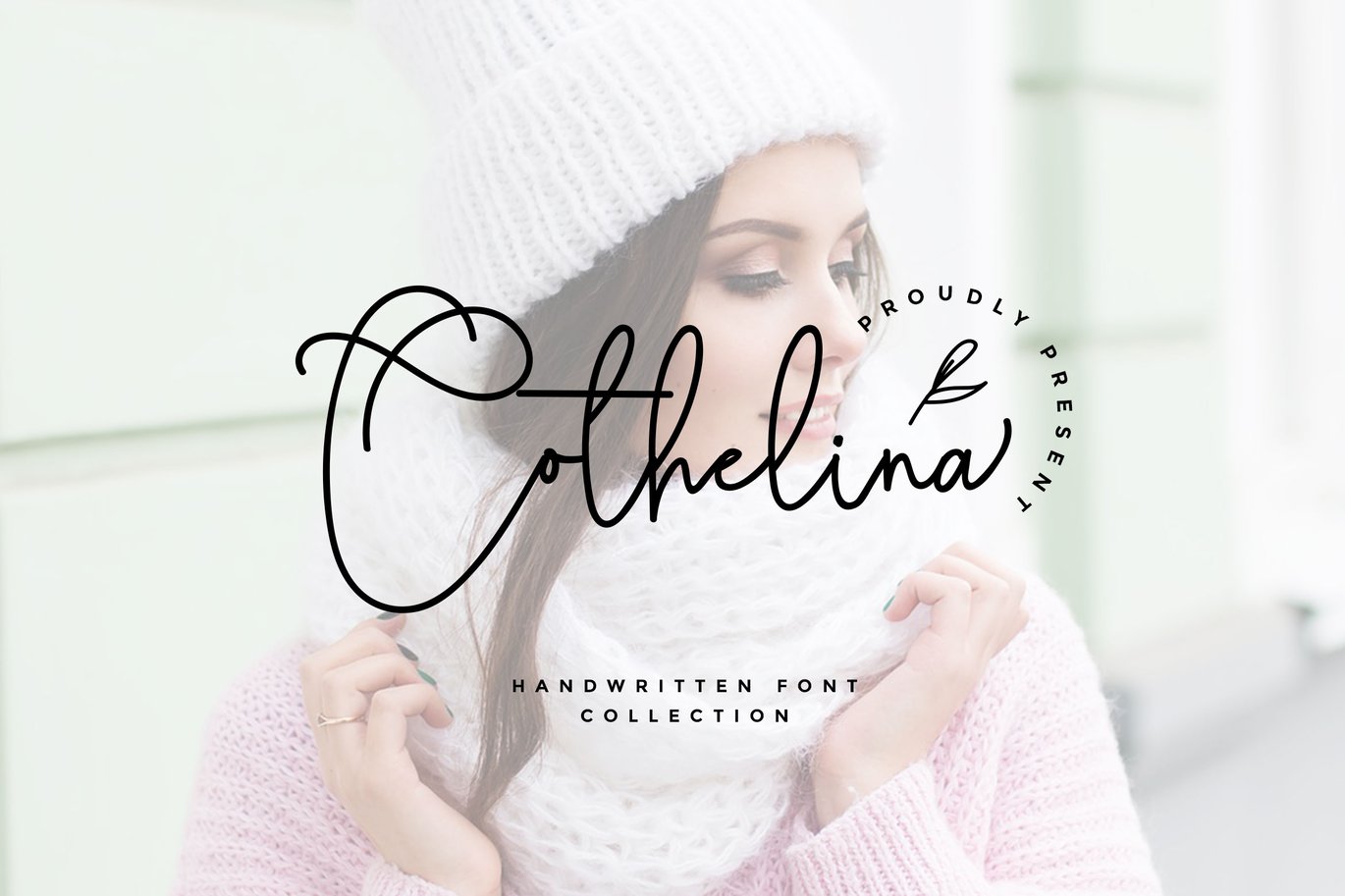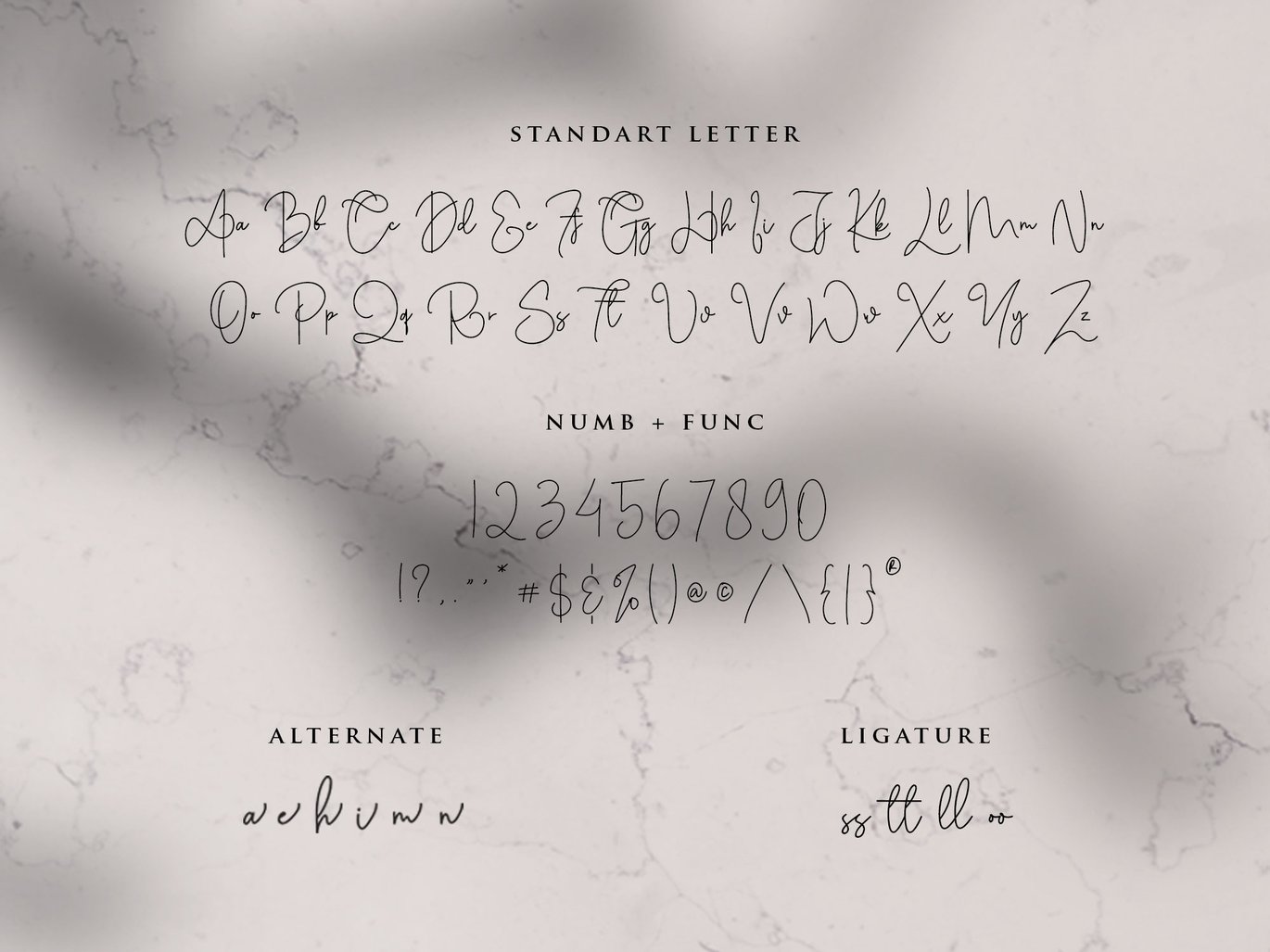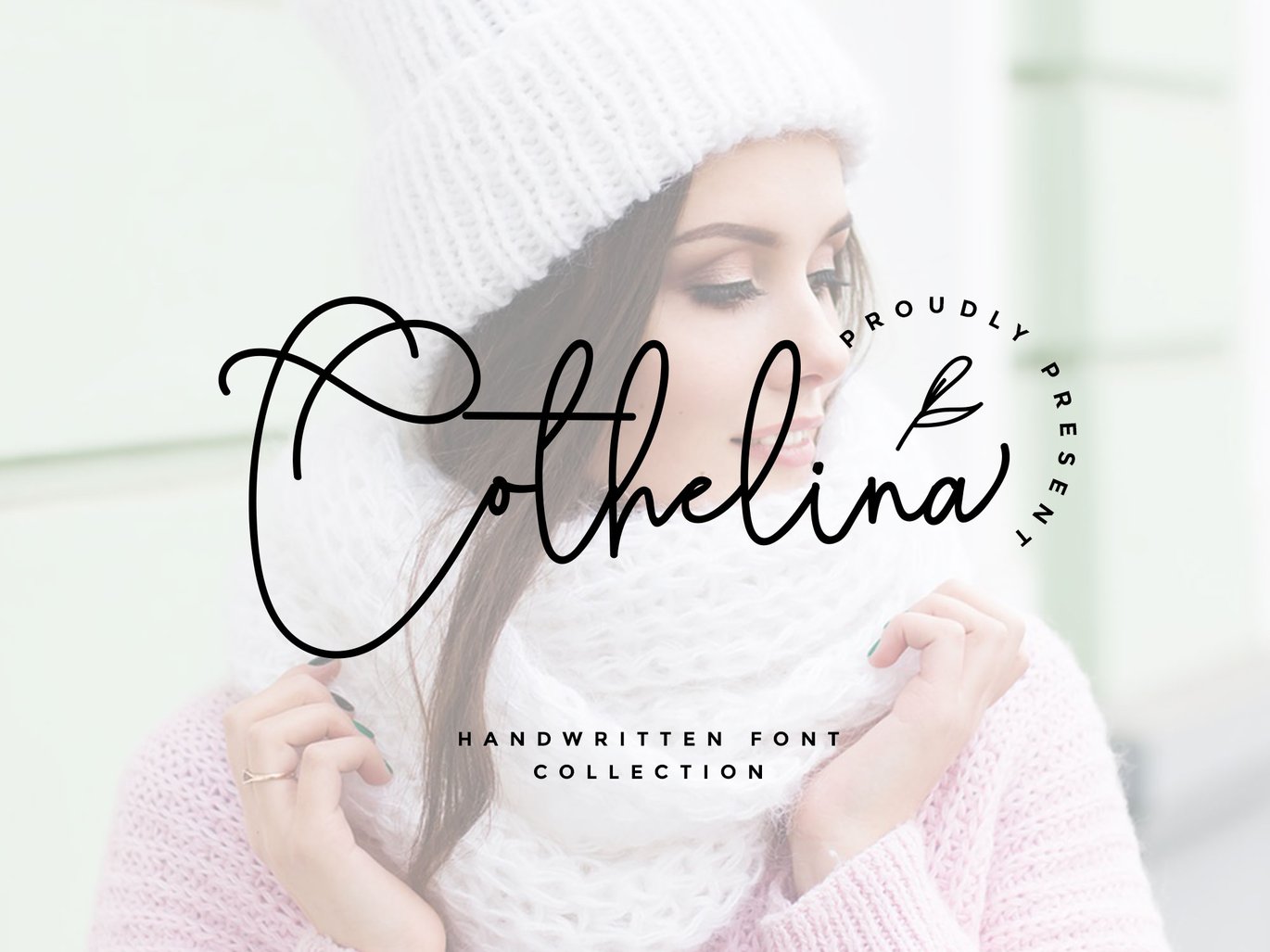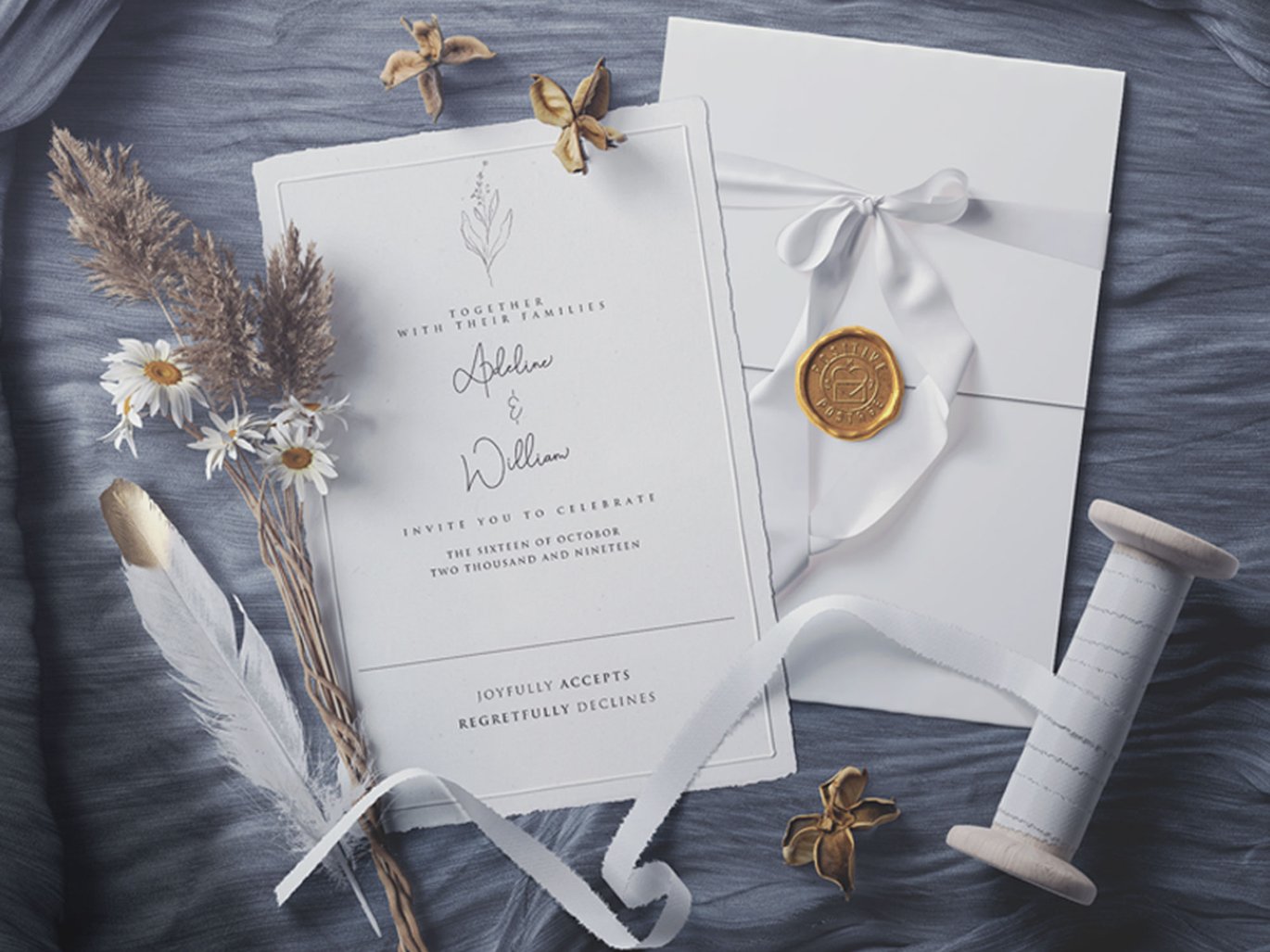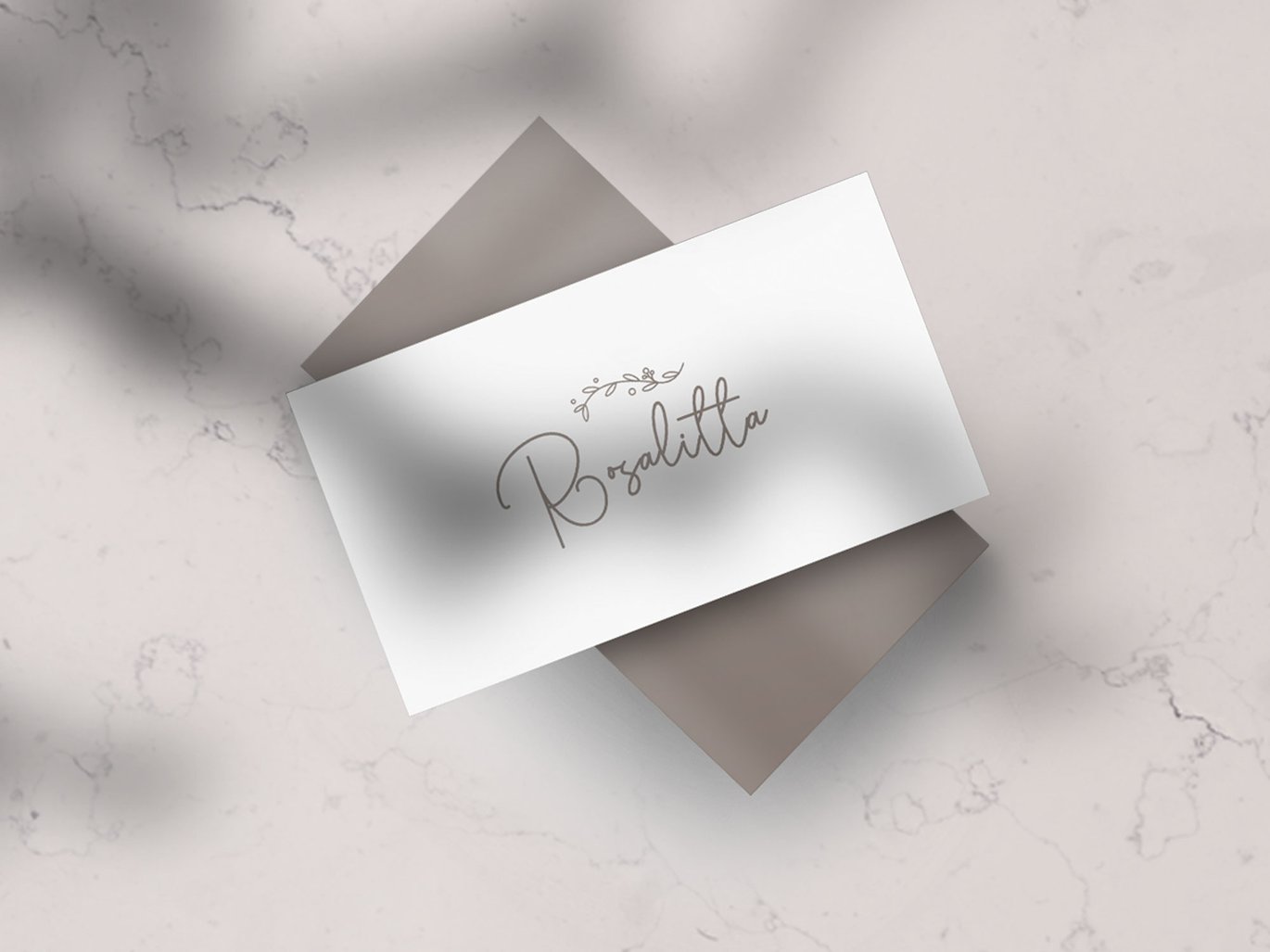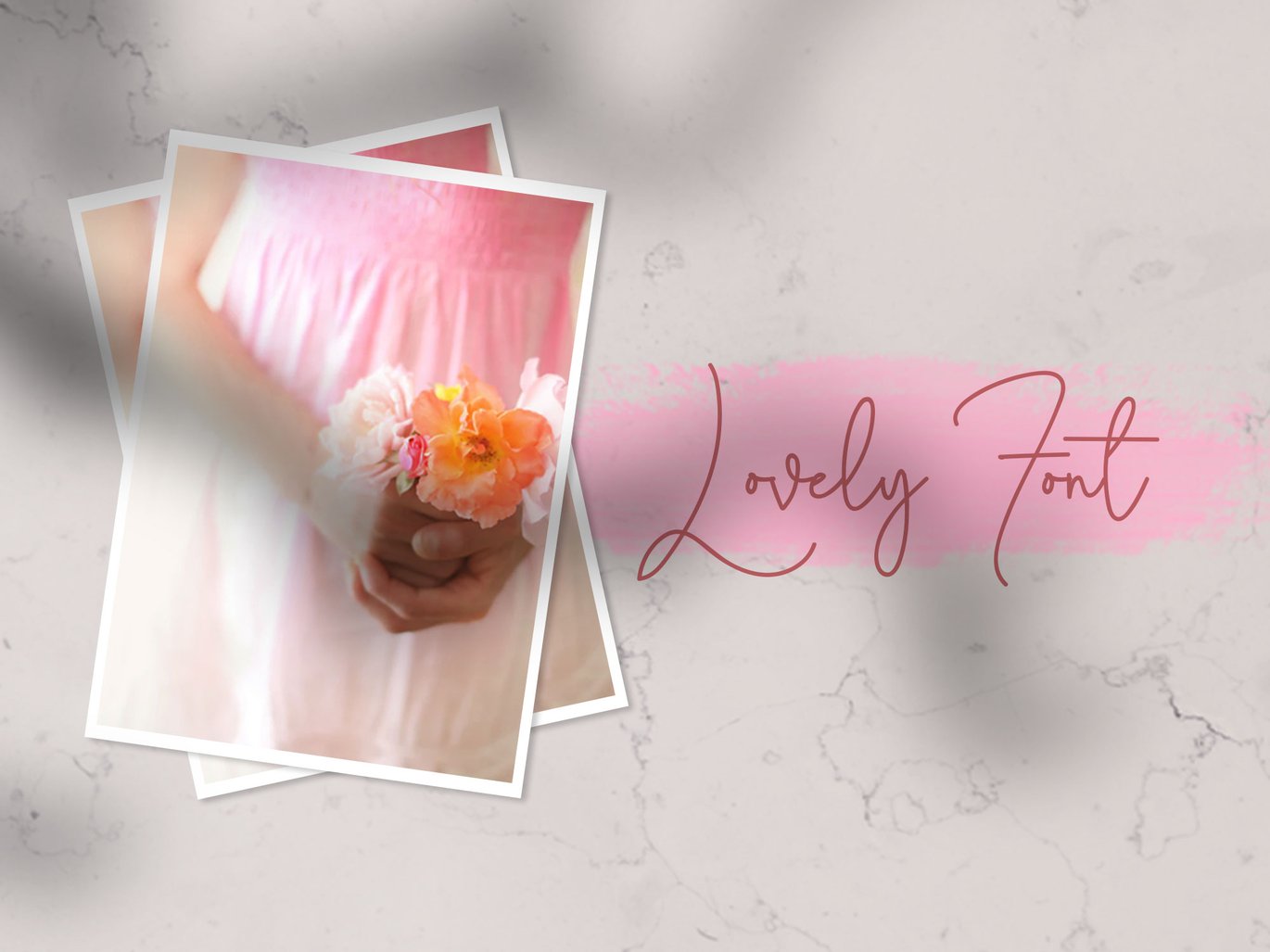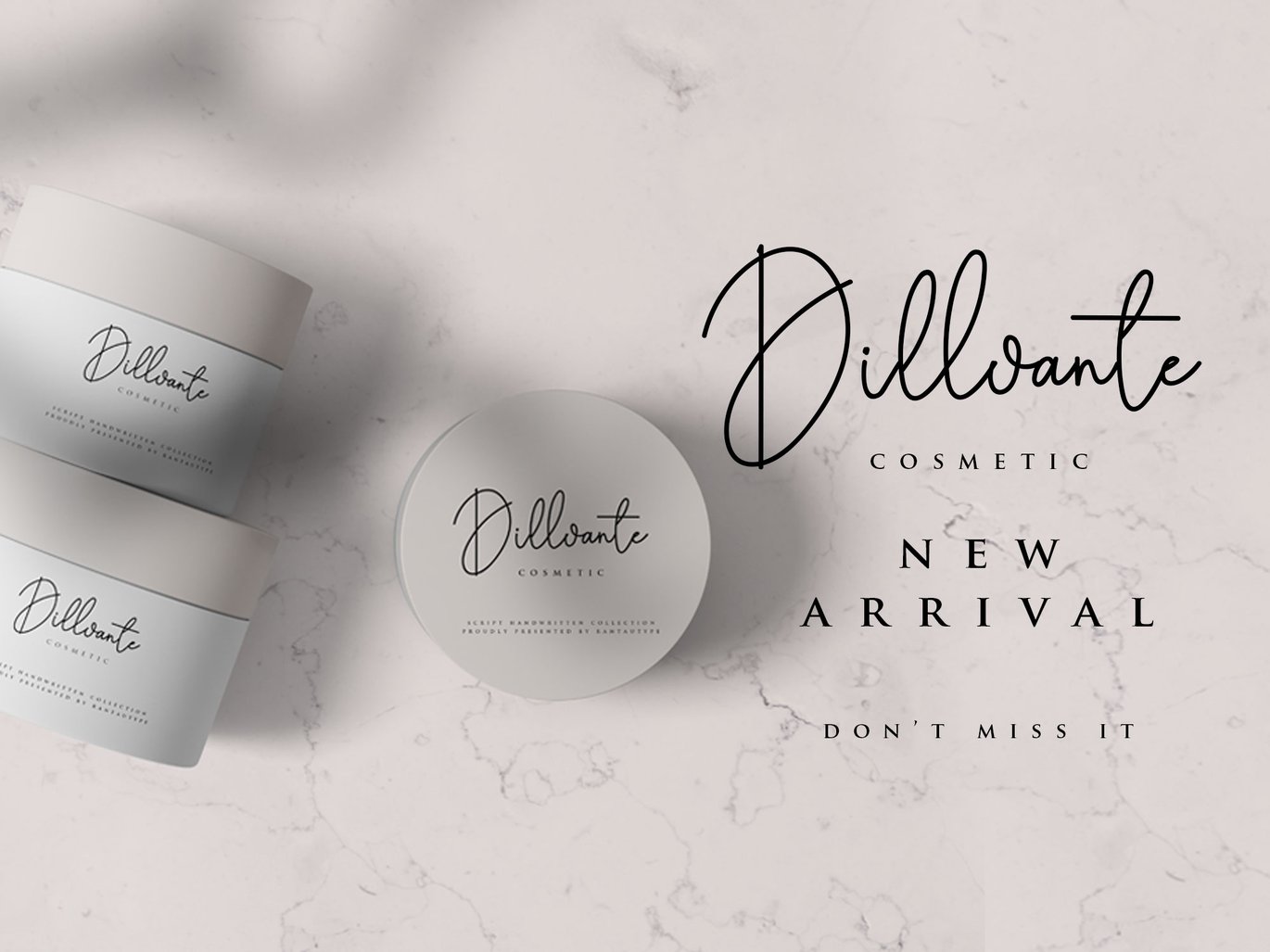
Cothelina Signature Font
Proudly present Another loving font ìConthelinaî handwritten font his a symbol of a charming girl we keep this font looks elegant, classy, readable, stylish, catchy, and easy to use. Golden mind is the great choice for a watermark on photography, signature or signature logo design, quotes, album cover, business card, and many other design projects. Golden mind is here to make your work to a high level!!!
- Basis Letter: A ñ Z and a ñ z
- Number & Functional